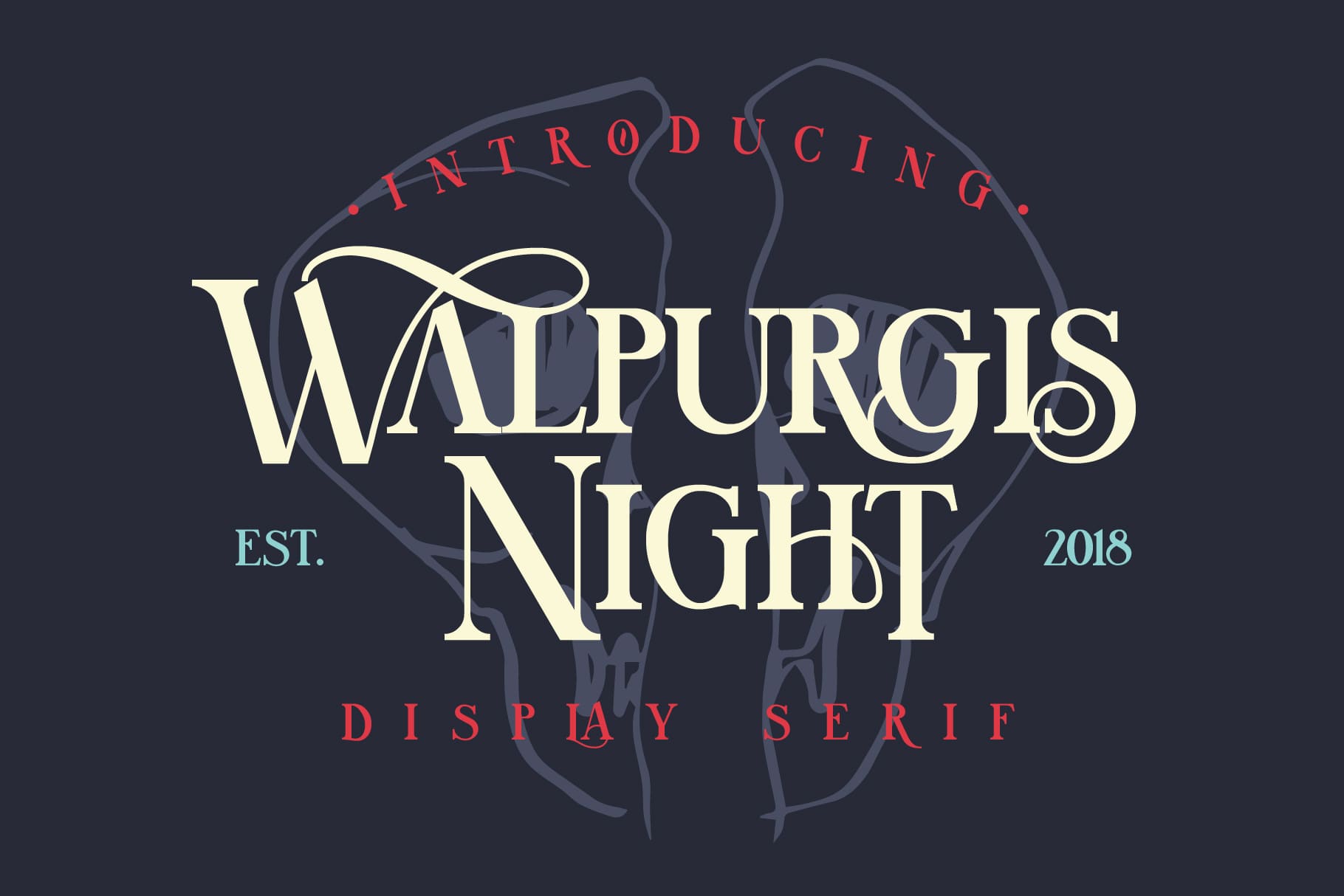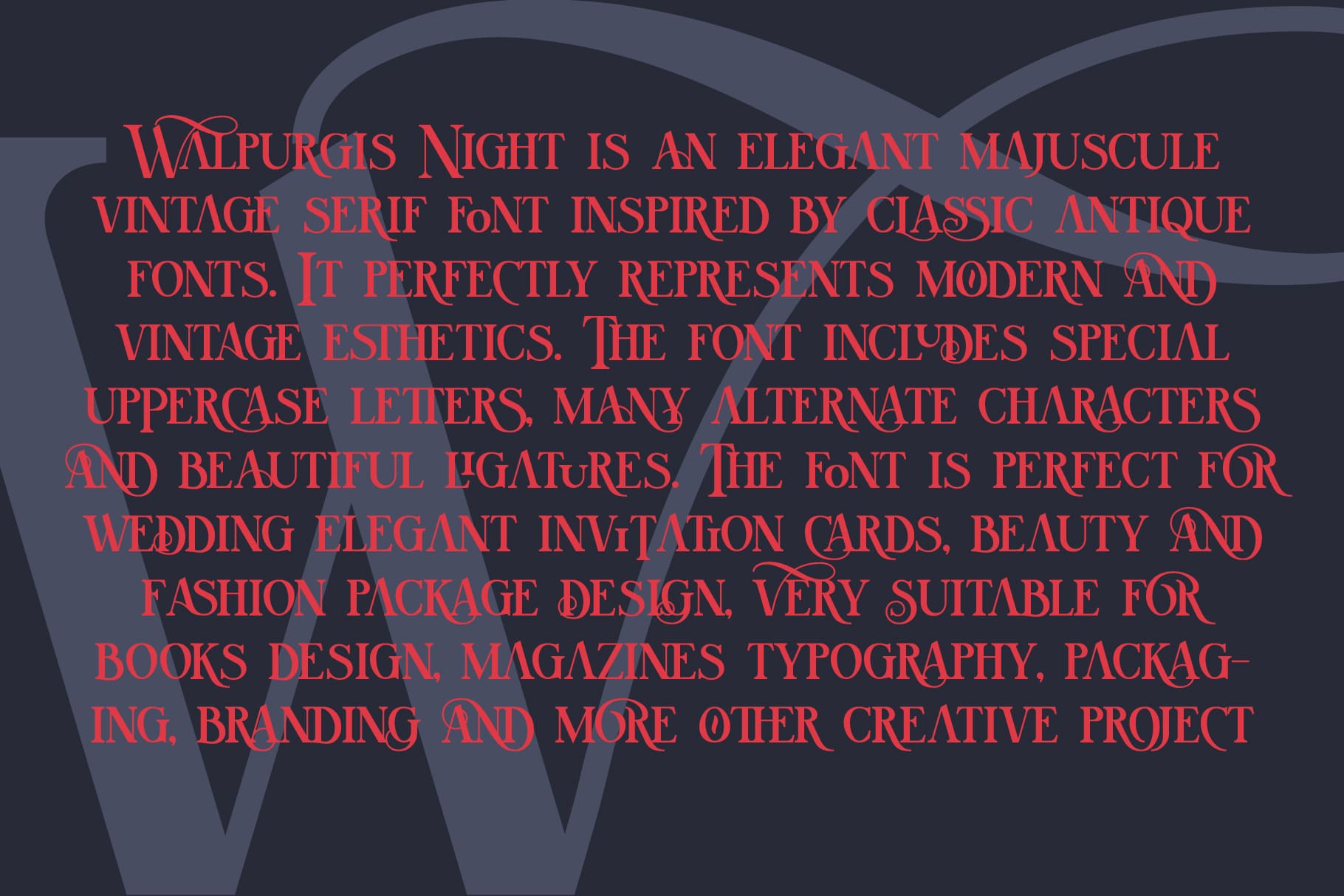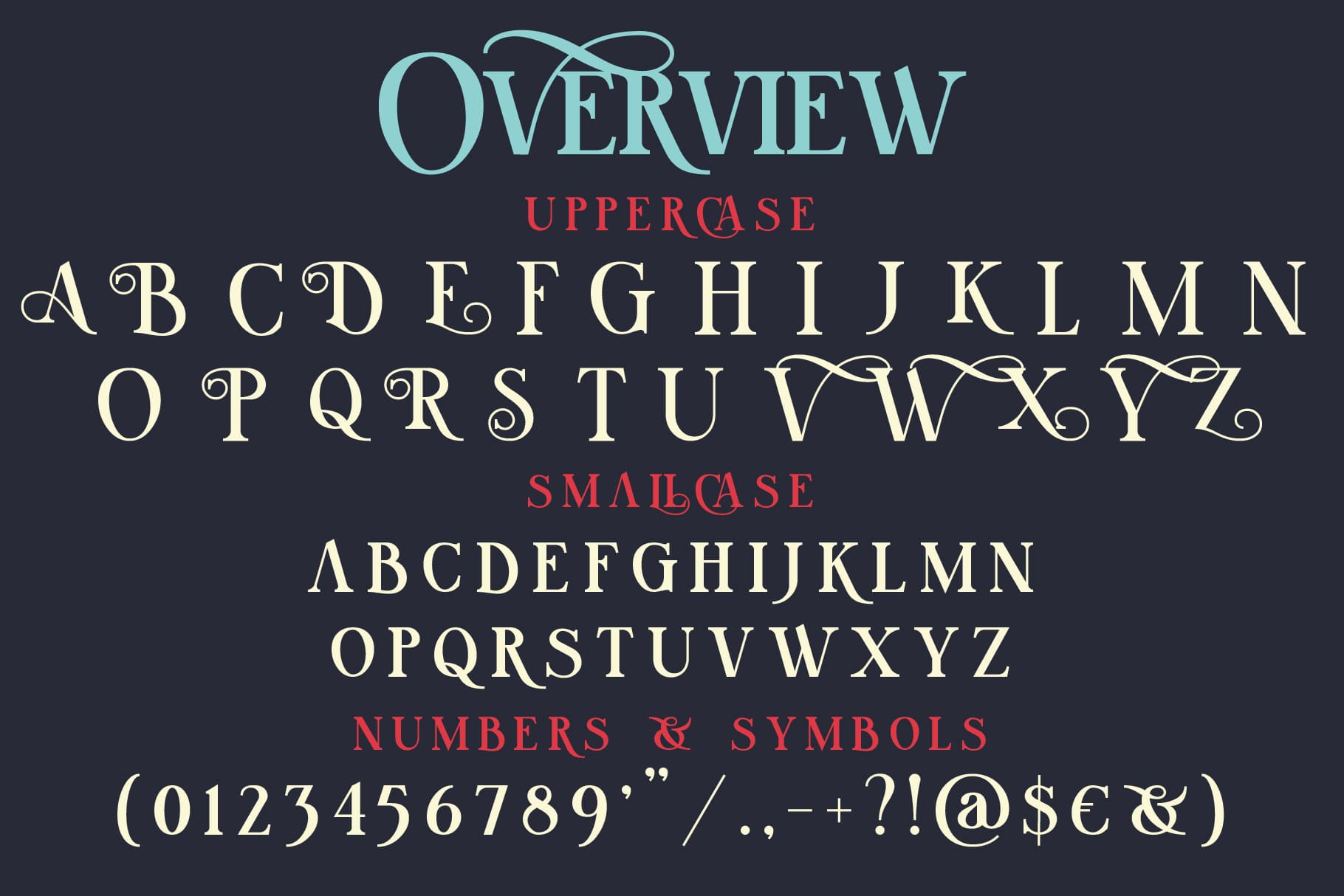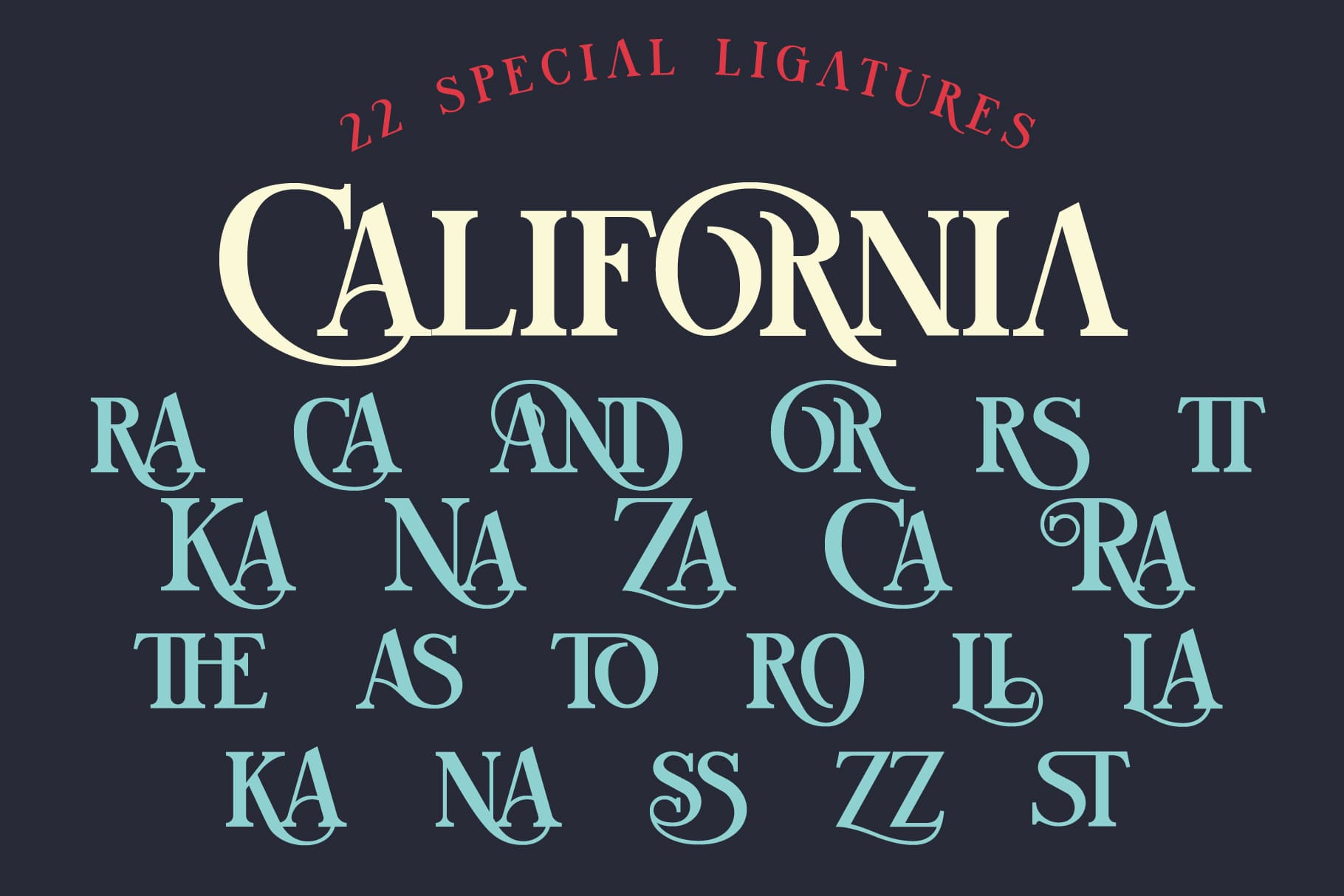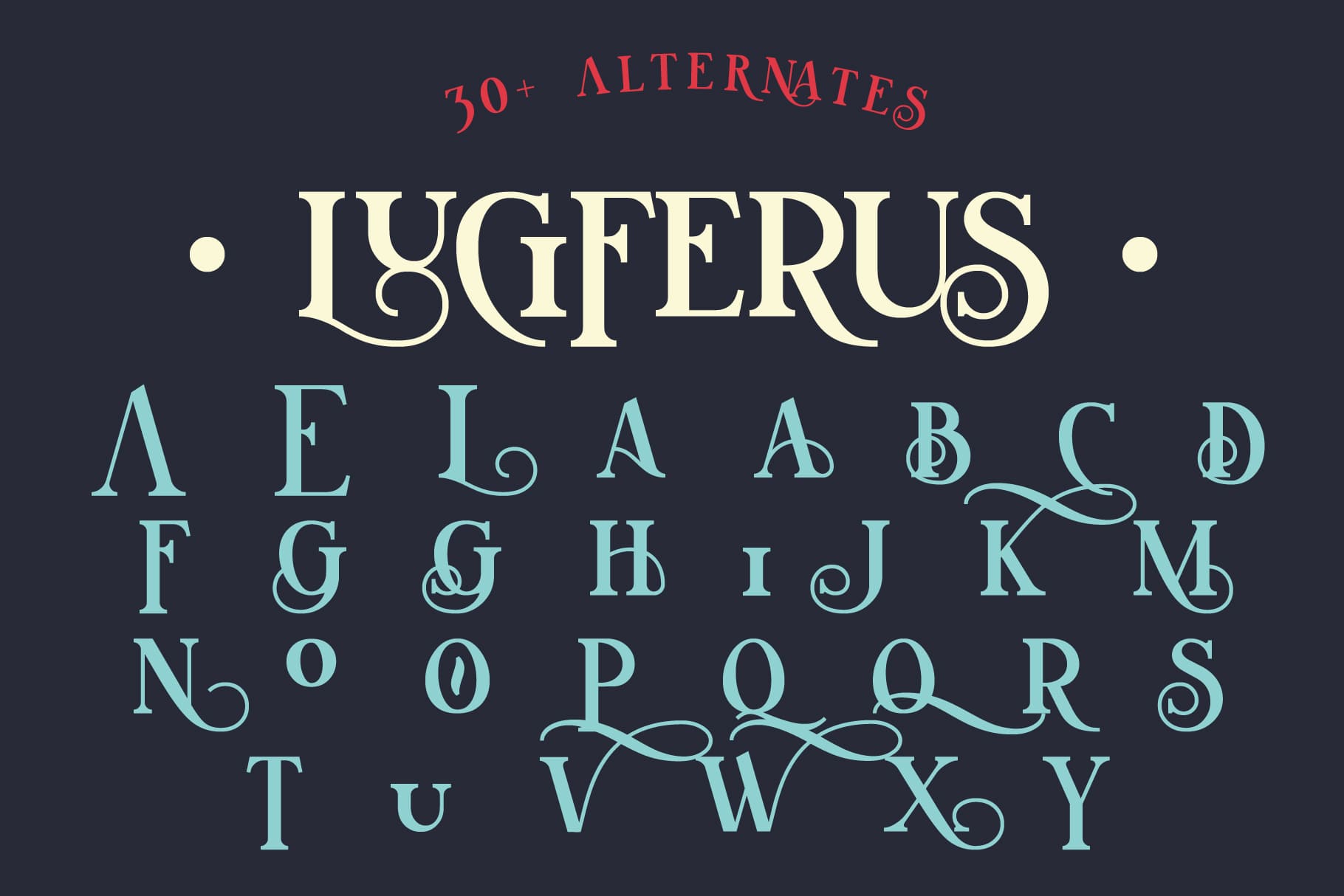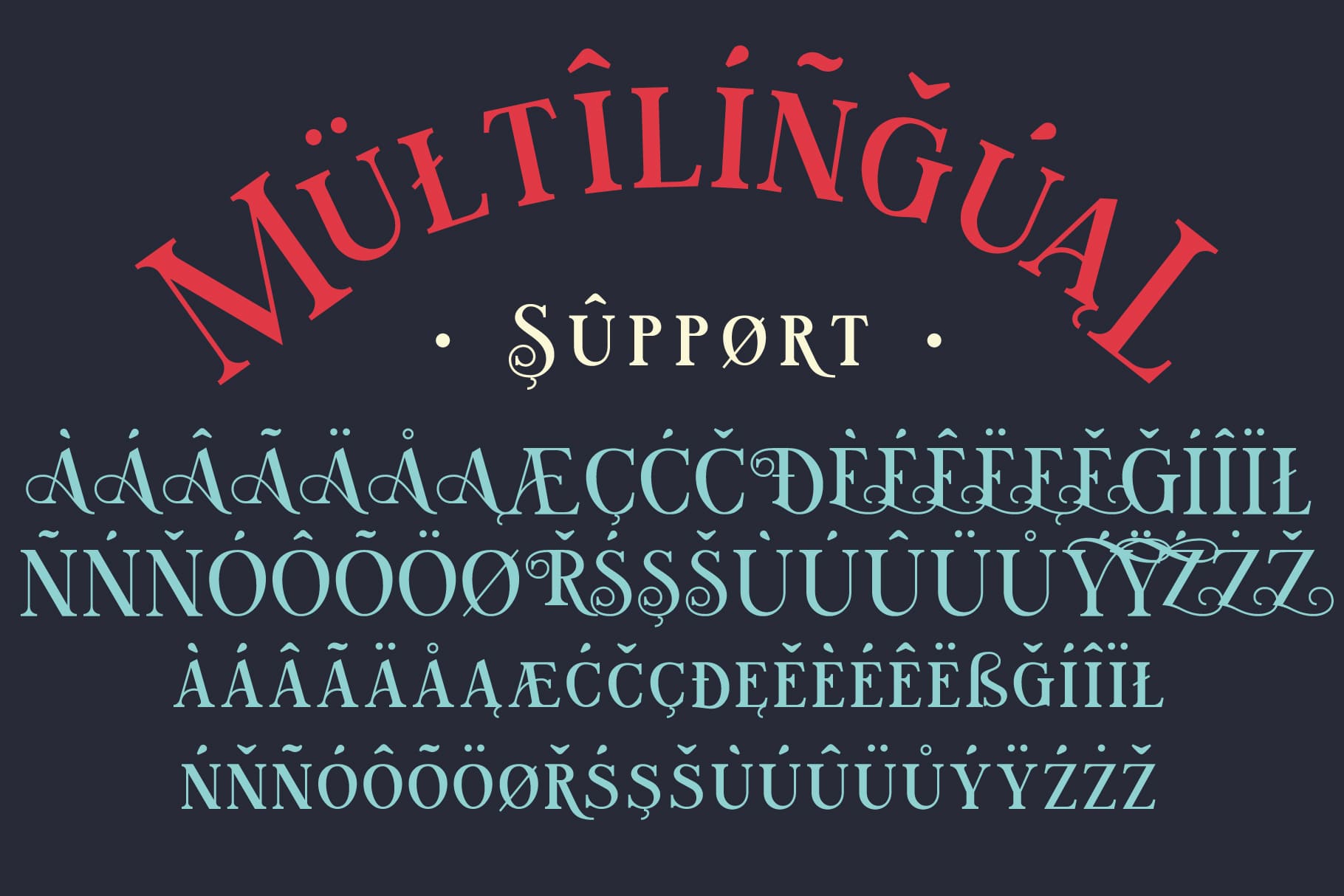
Walpurgis Night (1 font)
The font is perfect for elegant wedding invitation cards, beauty and fashion package design, and very suitable for books design, magazines, typography, packaging, branding and other creative projects.
It supports many languages such as: Czech, Danish and Norwegian, German, English, Spanish, French, Italian, Magyar, Nederlands, Polish, Portuguese, Finnish, Swedish, Turkish and other based on the Extended Latin character set.